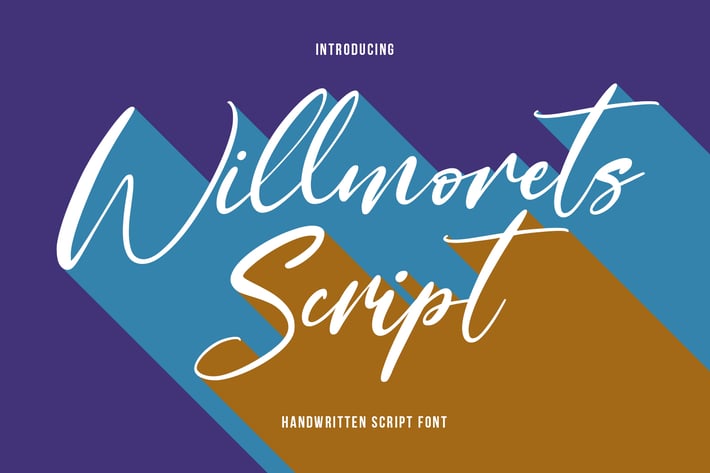
Willmorets Script Font
Willmorets is casual script font, with clean contrast stroke, super slanted and fun character. It has Opentype features ligatures of character, To give you an extra creative work. Willmorets font support multilingual more than 100+ language. This font is good for logo design, Social media, Movie Titles, Web Font, a short text even a long text letter and good for your secondary text font with sans or serif. Make a stunning work with Willmorets font.